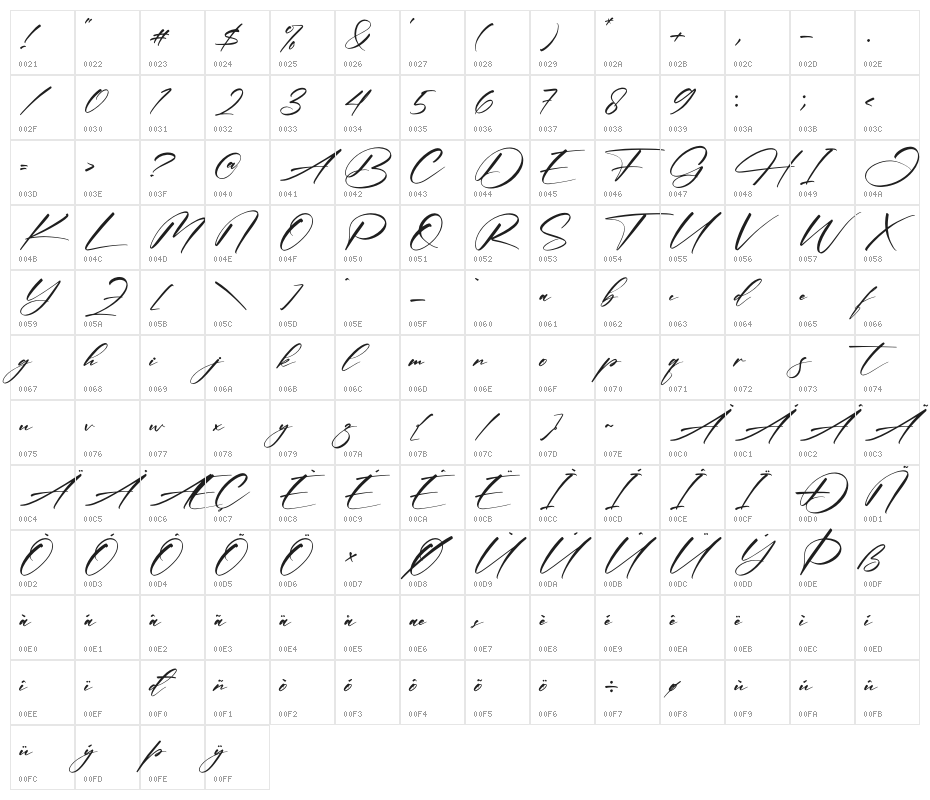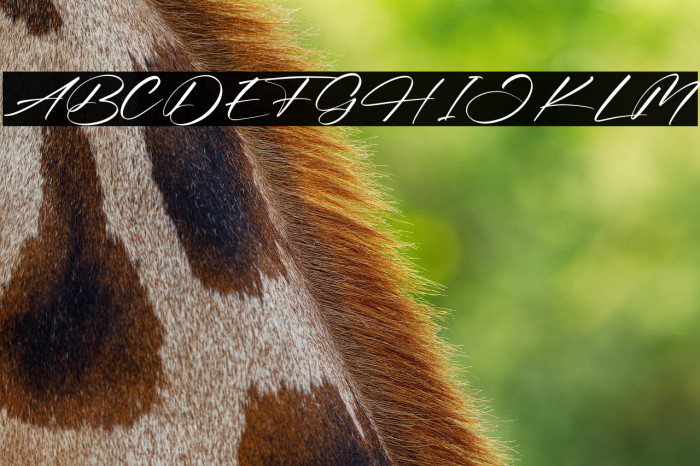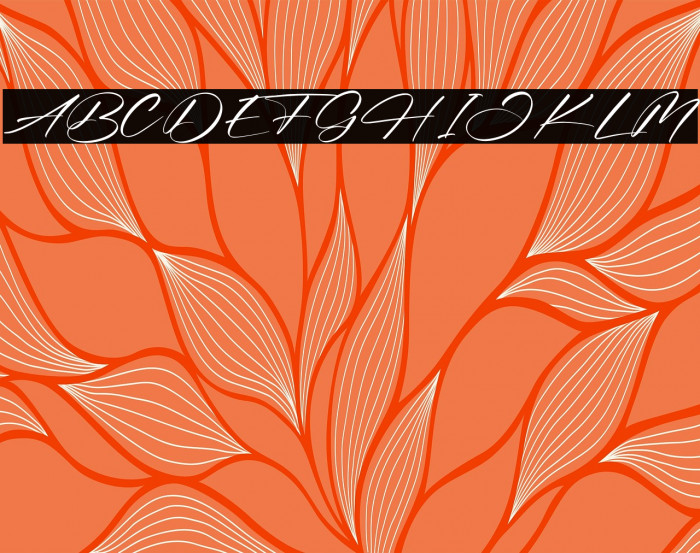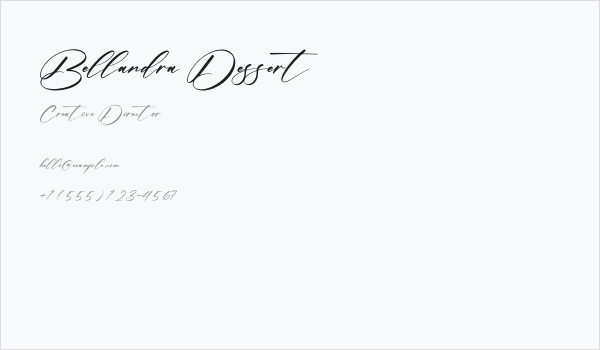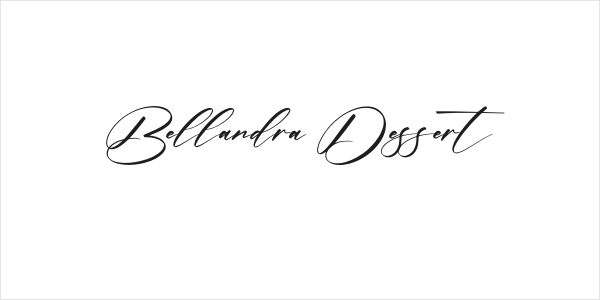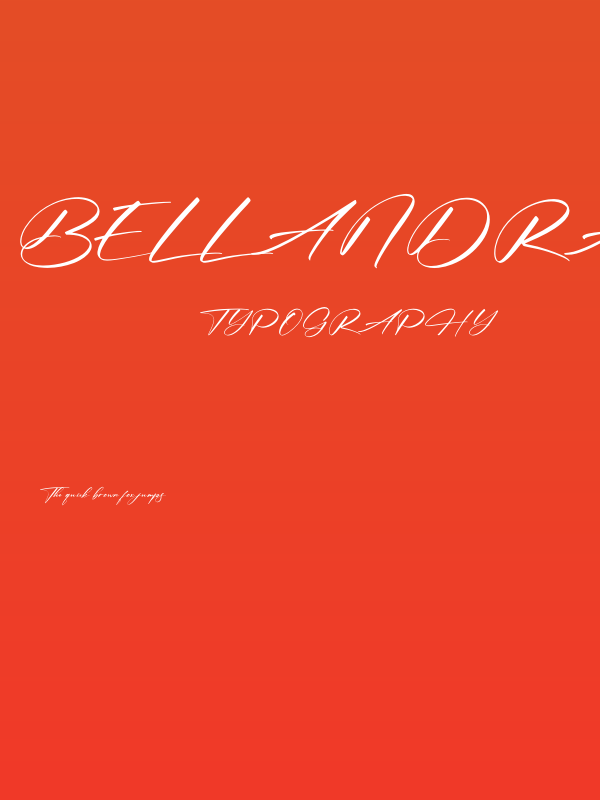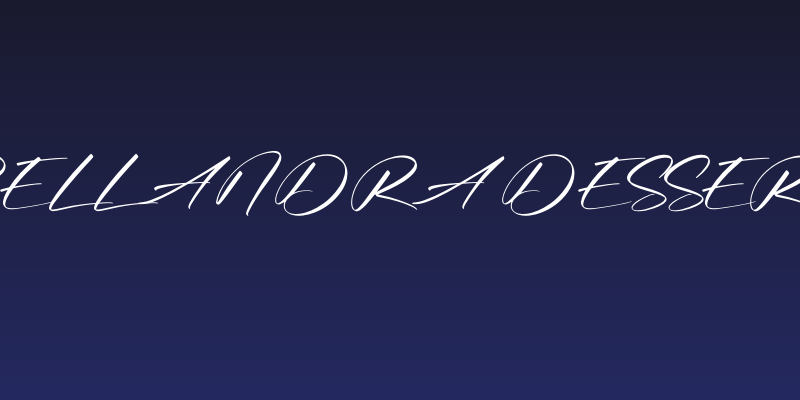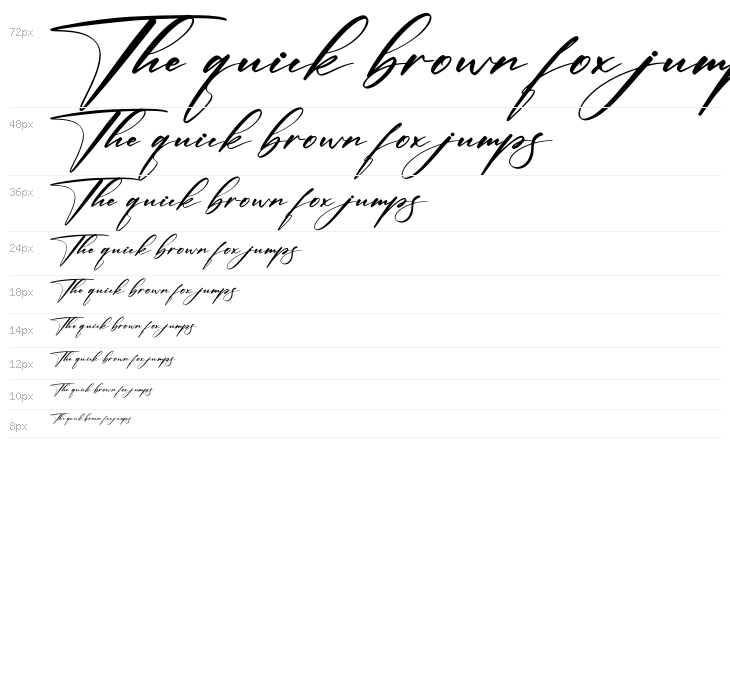
Bellandra Dessert Font
Bellandra Dessert Description
This elegant script font exudes a sense of sophistication and fluidity, characterized by its flowing, cursive strokes and graceful curves. The uppercase letters are slightly more elaborate, with sweeping lines that extend beyond the baseline, while the lowercase letters maintain a consistent rhythm and balance. The numerals and special characters complement the alphabet with their stylish and cohesive design. This font's high contrast between thick and thin strokes adds to its refined appearance, making it ideal for projects that require a touch of elegance and class.